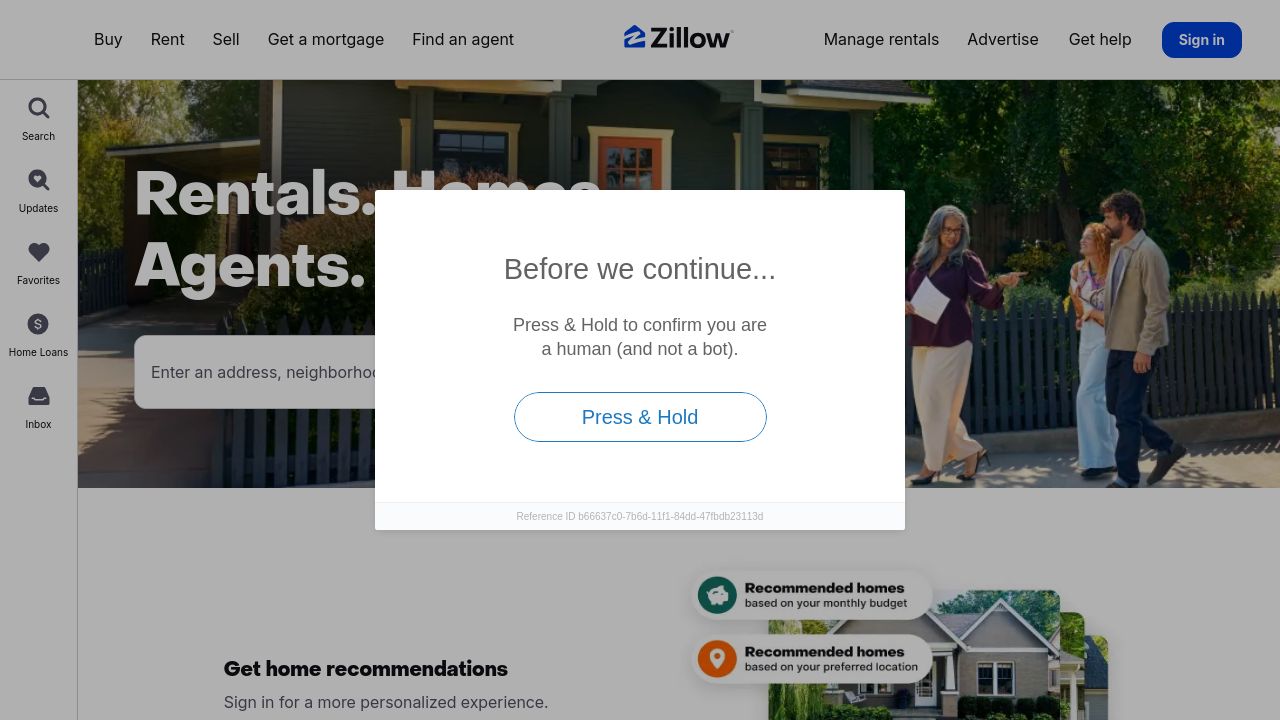
What fonts does Zillow use?
Zillow.com serves as a vital resource in the real estate marketplace, utilizing a carefully curated selection of fonts to enhance user experience. The primary font, Inter, conveys clarity through its various weights, while Open Sans ensures readability across devices. The use of Ivar Headline and its subset adds a distinctive character to headlines, promoting engagement. Object Sans contributes to a strong visual hierarchy, making it easier for users to navigate listings and mortgage services efficiently.
What fonts are used on zillow.com?
Zillow.com primarily uses Inter, Open Sans, Ivar Headline, Ivar Headline Subset, and Object Sans. These fonts are designed to improve readability and user engagement.
How do the fonts on zillow.com compare to alternatives?
Inter and Open Sans are often compared to Arial and Helvetica for their legibility. Ivar Headline provides a unique style that stands out compared to standard headline fonts like Roboto or Montserrat.
What font weights are used on zillow.com?
Zillow.com utilizes various font weights: Inter at 400 and 800, Open Sans at 400, Ivar Headline at 600, and Object Sans at 800. This variety supports a clear visual hierarchy.